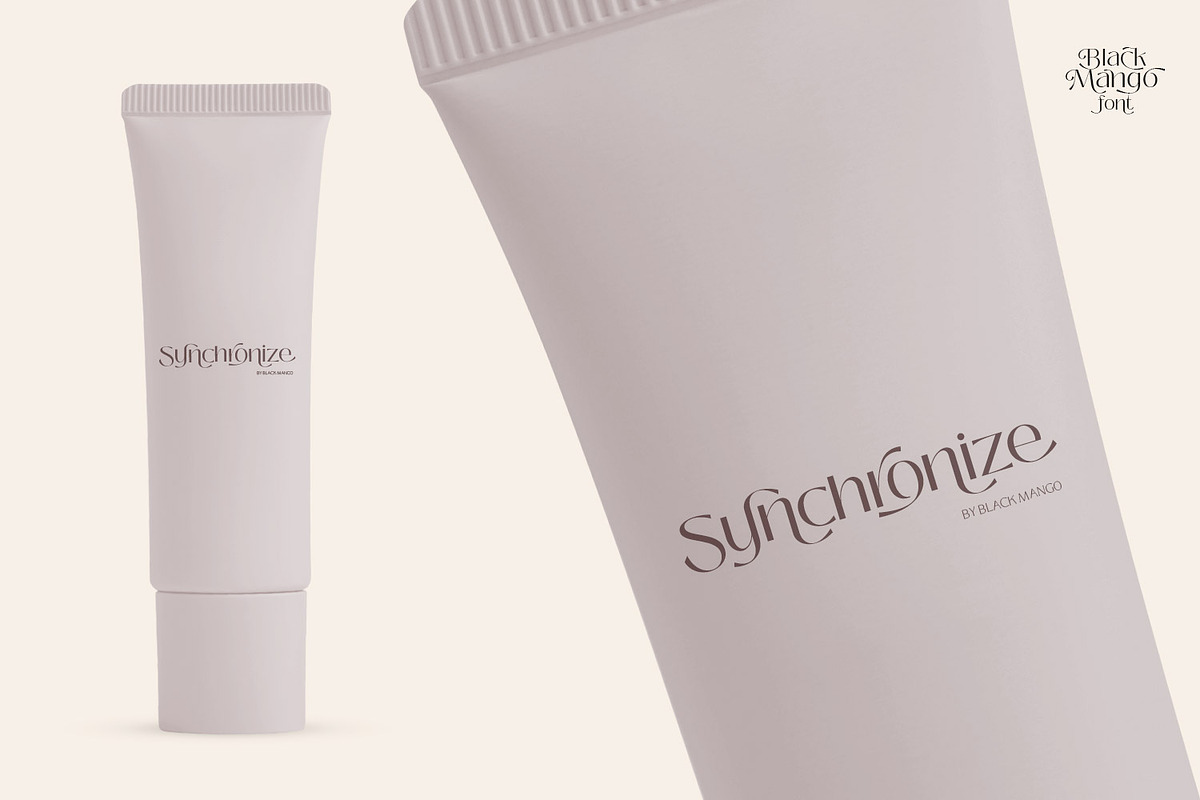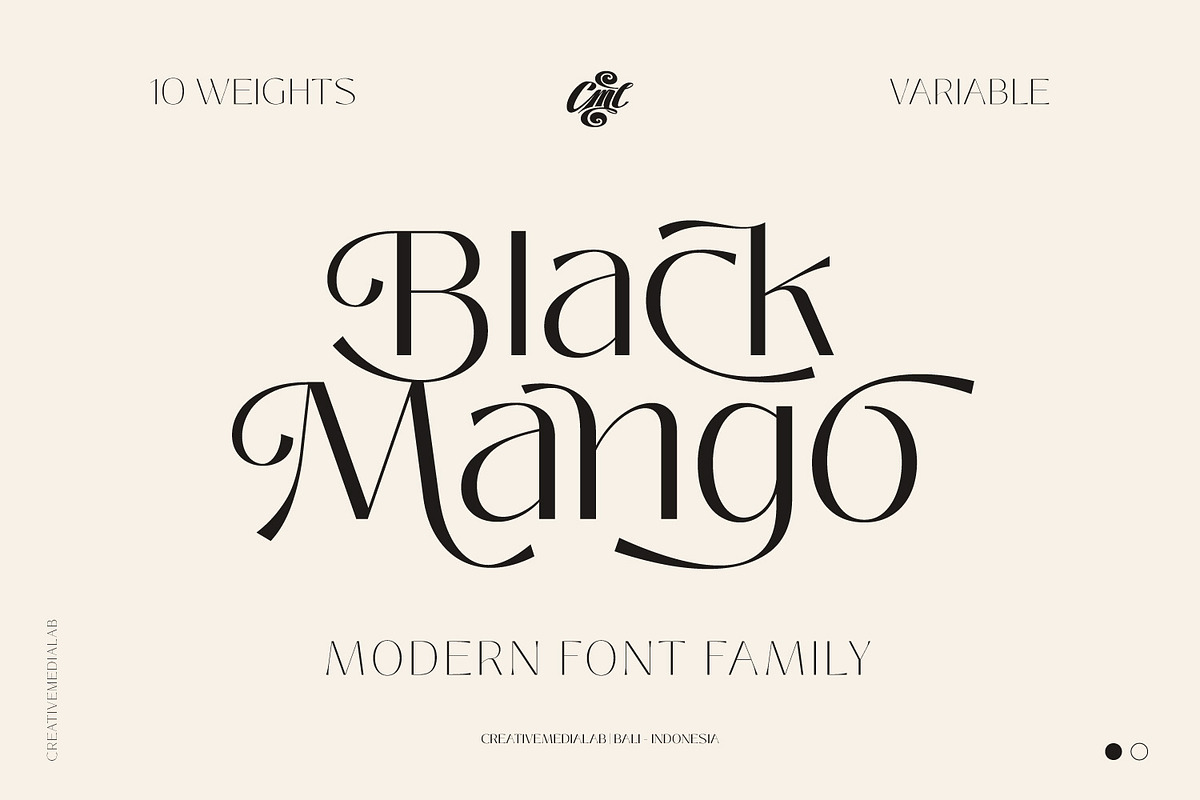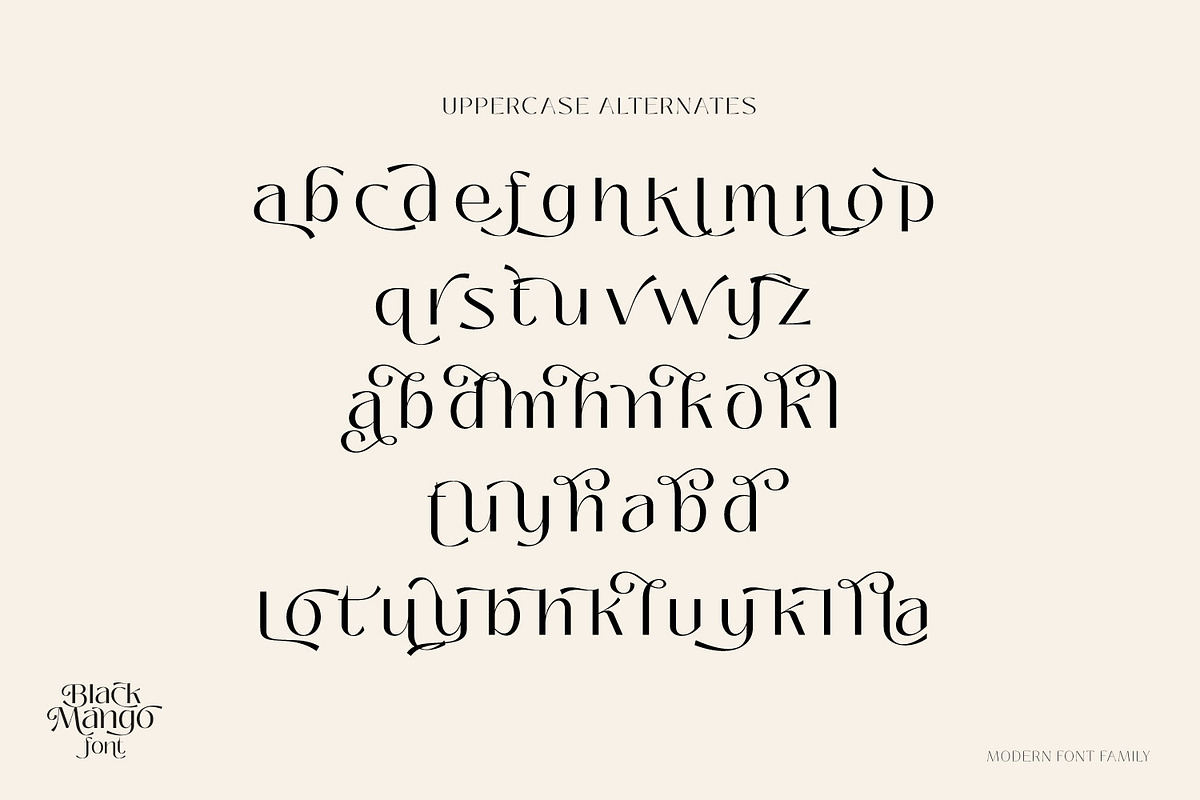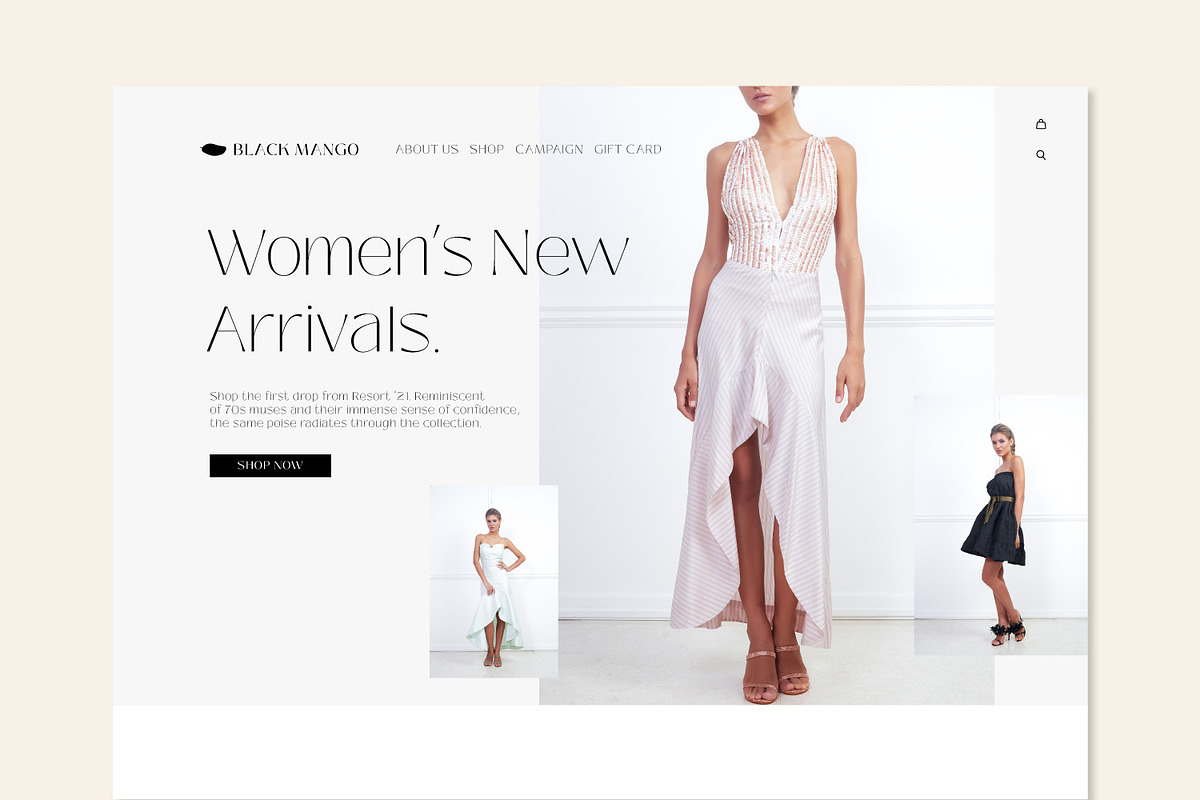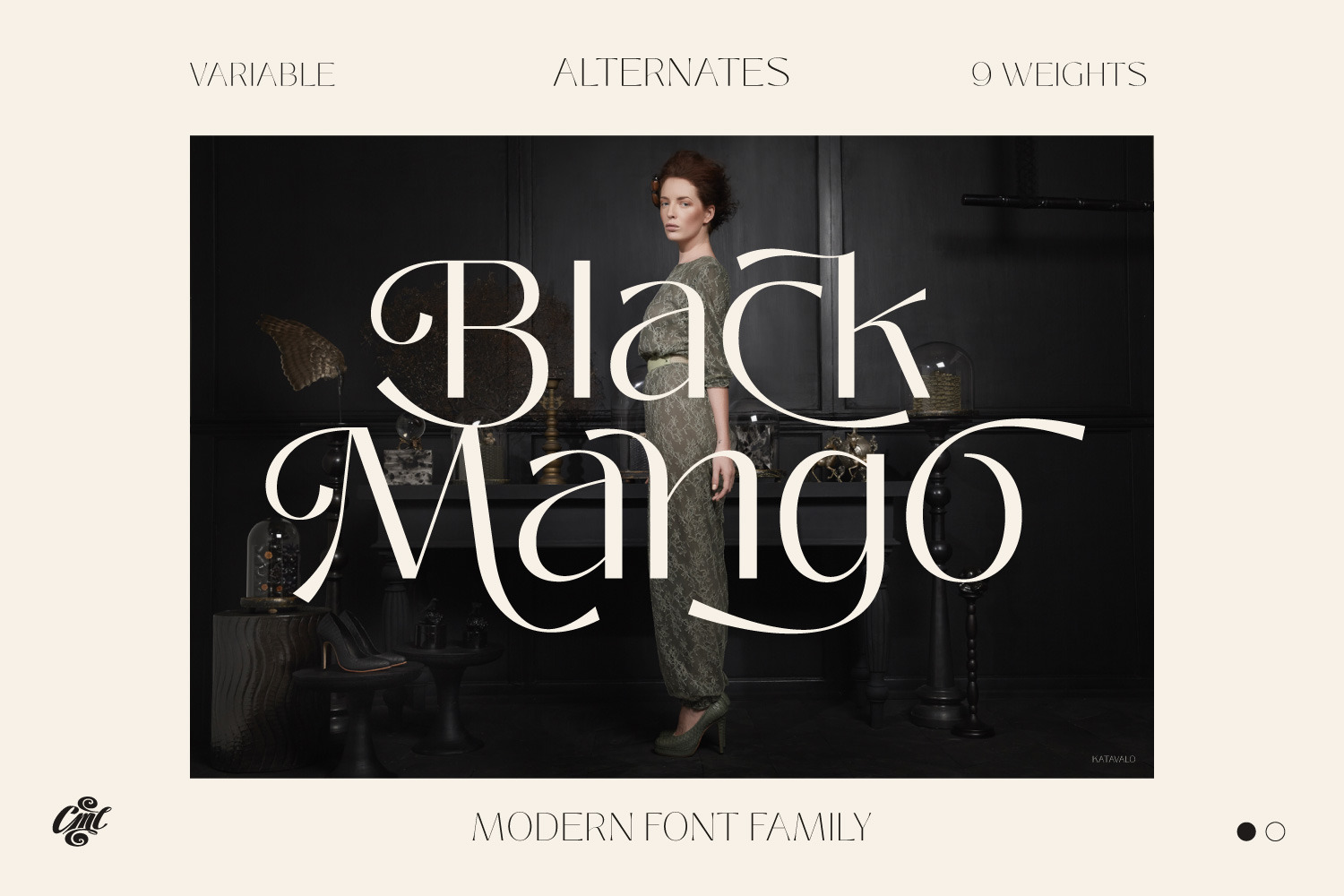
Black Mango - Modern beauty font
Black Mango Family
Modern simple family consists of 9 weights and has dozens of alternates to combined with. this versatile family is best for branding, webdesign project, logo and much more. comes with variable format as well as multilingual support, numbers, and currency symbols.